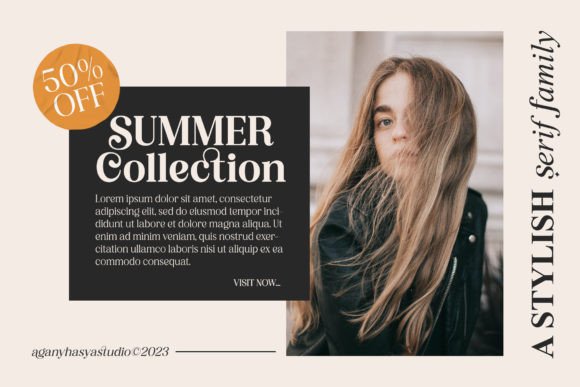
Bevenida Font: Elevate Your Designs with a Modern Stylish Serif
In the world of typography, a font can make or break a design. A well-crafted font can elevate your project, making it stand out from the crowd, while a poorly chosen one can detract from the overall aesthetic. If you’re on the hunt for a modern stylish serif font that exudes elegance, sophistication, and a touch of retro charm, look no further than Bevena Font. In this article, we’ll dive into the world of Bevena, exploring its features, benefits, and uses, and why it’s a must-have for designers and creatives.
Introducing Bevena Font
Bevena is a modern stylish serif font family that seamlessly blends elegance with a retro and vintage flair. This versatile font family consists of 14 carefully crafted styles, ranging from thin to bold, including italics. Whether you’re working on a logo, branding project, or a magazine design, Bevena has a style to suit your needs.
Key Features:
- Uppercase and Lowercase: Bevena features a comprehensive set of uppercase and lowercase letters, ensuring you have everything you need to create stunning text-based designs.
- Numeral and Punctuation: The font includes a wide range of numerals and punctuation marks, making it perfect for designs that require precision and attention to detail.
- Multilingual Support: Bevena supports multiple languages, allowing you to create designs for a global audience.
- Opentype Features: The font features Opentype capabilities, providing you with advanced typographic control and flexibility.
Benefits of Using Bevena Font
So, why choose Bevena for your design projects? Here are just a few benefits of using this exceptional font:
- Elegance and Sophistication: Bevena’s modern stylish serif design exudes elegance and sophistication, making it perfect for high-end branding, luxury products, and editorial designs.
- Versatility: With 14 styles to choose from, Bevena can be used for a wide range of design projects, from logos and branding to magazine designs and book covers.
- Retro and Vintage Flair: Bevena’s subtle retro and vintage undertones add a unique touch to your designs, setting them apart from more generic fonts.
Using Bevena Font in Your Design Projects
Bevena’s versatility makes it suitable for a wide range of design projects, including:
- Logos and Branding: Create a lasting impression with a custom logo or branding project that showcases your brand’s personality and style.
- Advertising: Use Bevena to create eye-catching advertisements that grab attention and leave a lasting impression.
- Product Designs: Elevate your product designs with a font that exudes elegance and sophistication.
- Stationery: Create beautiful stationery, including business cards, letterheads, and envelopes, that reflect your brand’s personality.
- Magazine Designs: Use Bevena to create stunning magazine designs that engage and inspire your readers.
- Book and Cover Title Designs: Make a lasting impression with a beautifully designed book cover or title page.
- Photography: Add a touch of elegance to your photography with Bevena’s stylish serif design.
- Art Quotes: Create stunning art quotes that inspire and motivate.
- Wedding Designs: Use Bevena to create beautiful wedding designs, including invitations, programs, and decorations.
- Fashion Designs: Elevate your fashion designs with a font that exudes style and sophistication.
- Special Events: Create memorable designs for special events, including conferences, festivals, and exhibitions.
- Labels and Product Packaging: Use Bevena to create eye-catching labels and product packaging that stands out on store shelves.
PUA Encoding: Easy Access to Glyphs and Ligatures
Bevena font is PUA (Private Use Area) encoded, making it easy to access all the amazing glyphs and ligatures. With PUA encoding, you can easily navigate and insert the characters you need, giving you complete creative control over your designs.